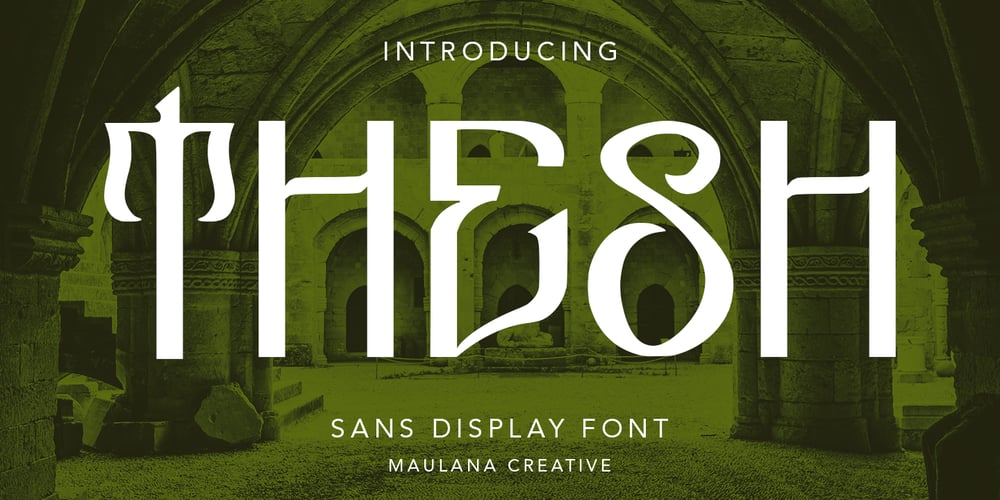
MC Thesh Font Family was designed by Gilang Maulana and published by Maulana Creative. MC Thesh contains 1 styles and family package options. Thesh is a modern Decorative Display font. Bold stroke, fun character with a bit of ligatures and alternates. To give you an extra creative work. Thesh font support multilingual more than 100+ language. This font is good for logo design, Social media, Movie Titles, Books Titles, a short text even a long text letter and good for your secondary text font with script or serif. Make a stunning work with Thesh font.Cheers,Maulana Creative